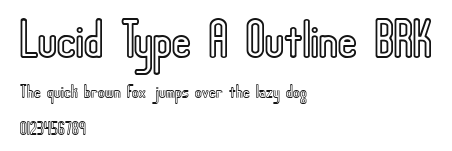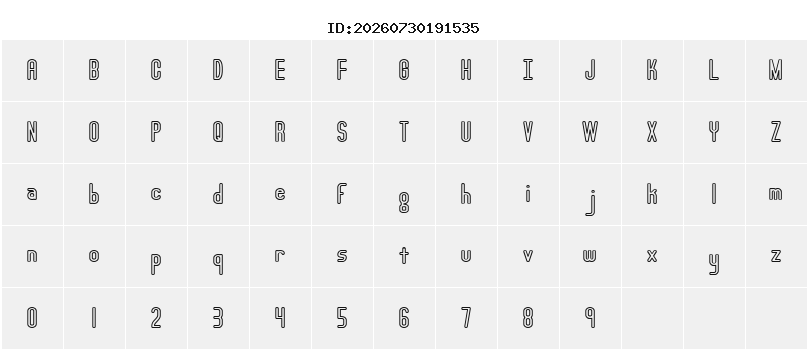
• Font Name: Lucid Type A Outline BRK
• Full Font Name: Lucid Type A Outline BRK
About Lucid Type A Outline BRK.ttf
Lucid Type A Outline BRK.ttf is a modern, elegant sans-serif font designed for ultimate readability and visual harmony. Perfect for branding, headlines, web design, and print materials.